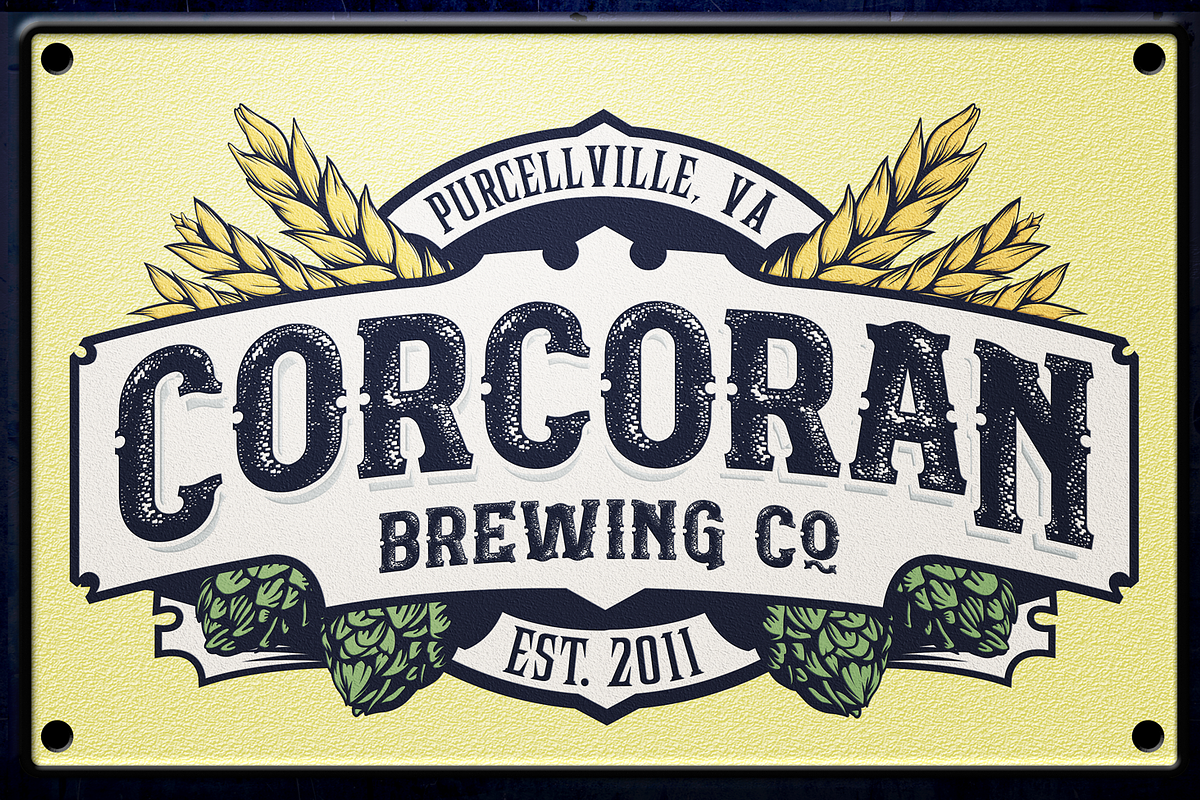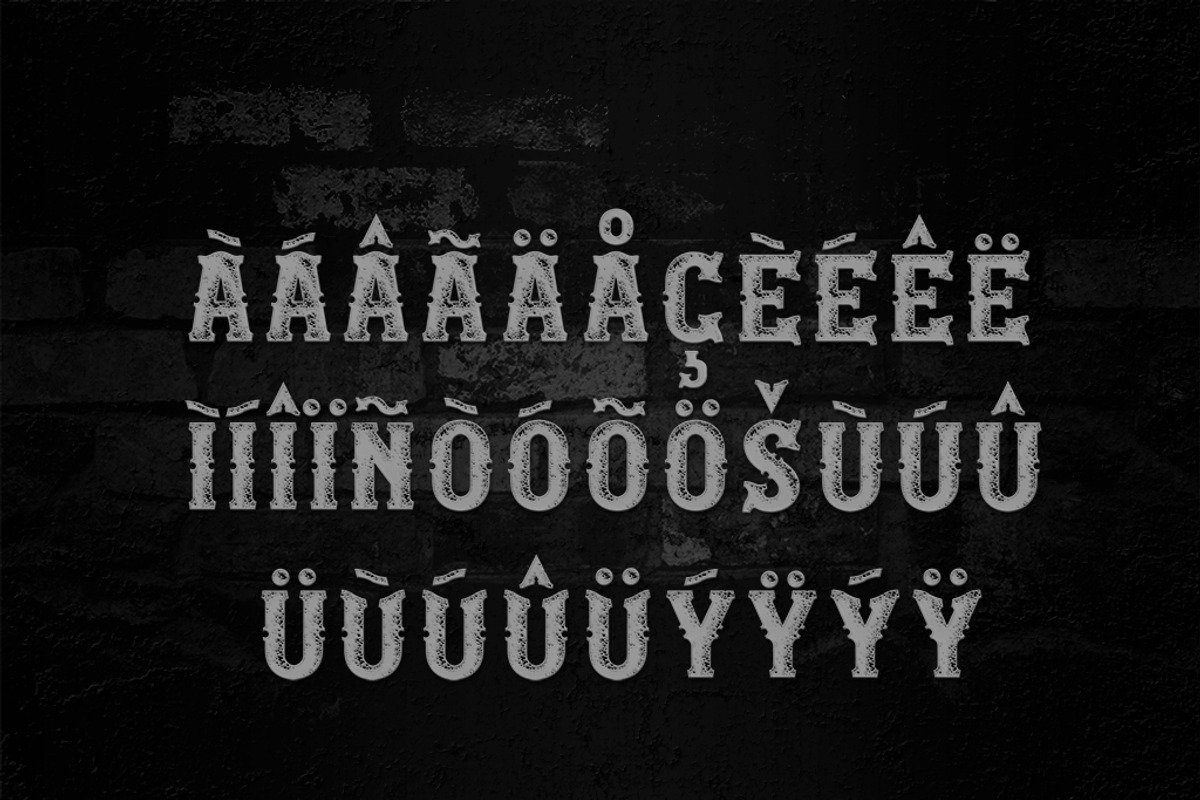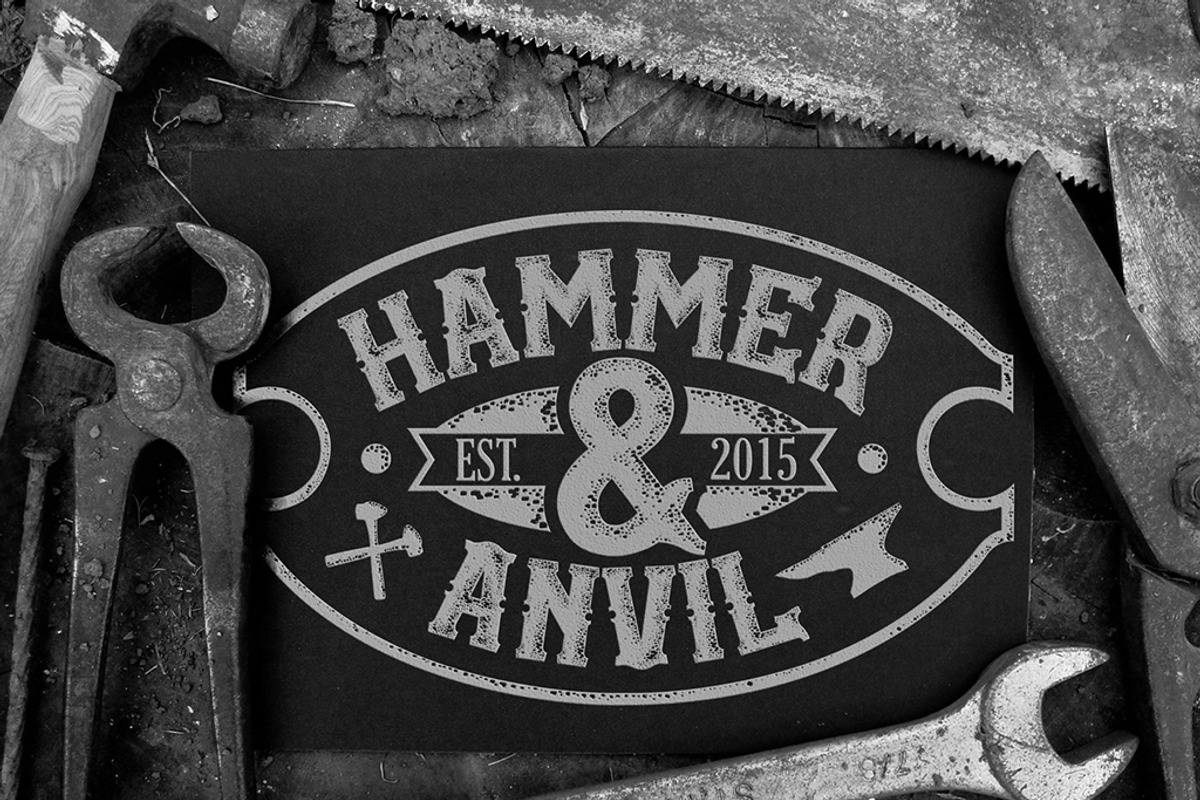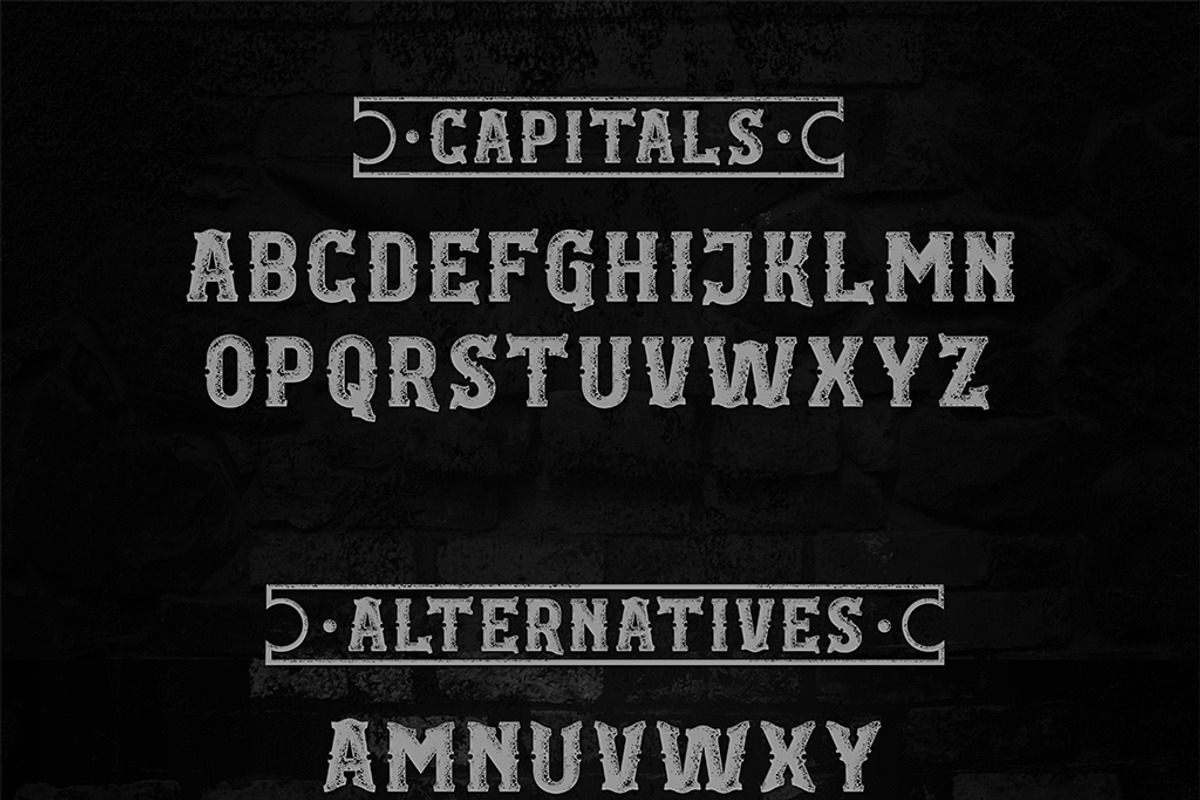
Hammer & Anvil Font
Hammer & Anvil Font by Alphabet Agency is a font selected for branding, posters, packaging, typography.
Why Hammer & Anvil Font is worth a look
Hammer & Anvil Font by Alphabet Agency fits naturally into Branding, posters, packaging, typography.